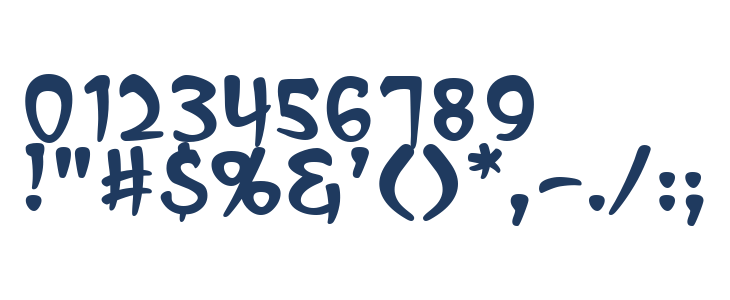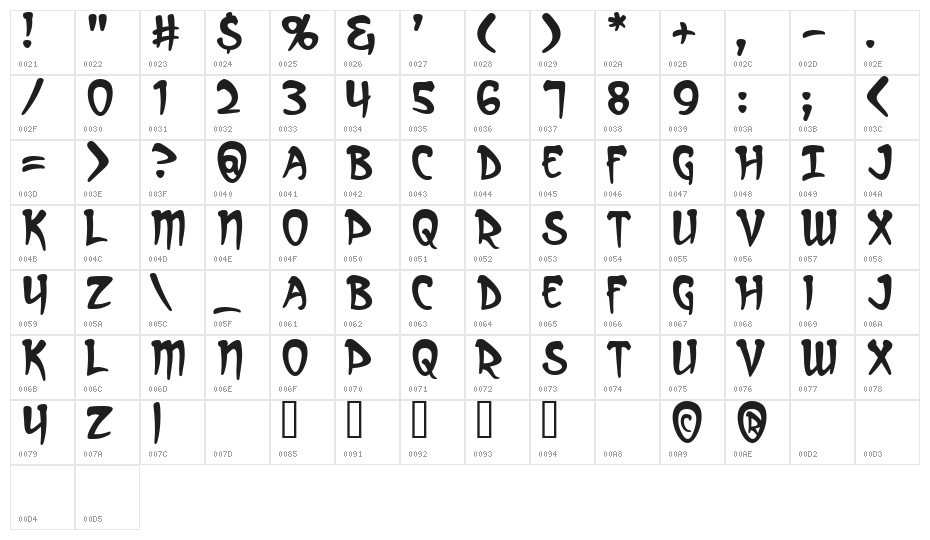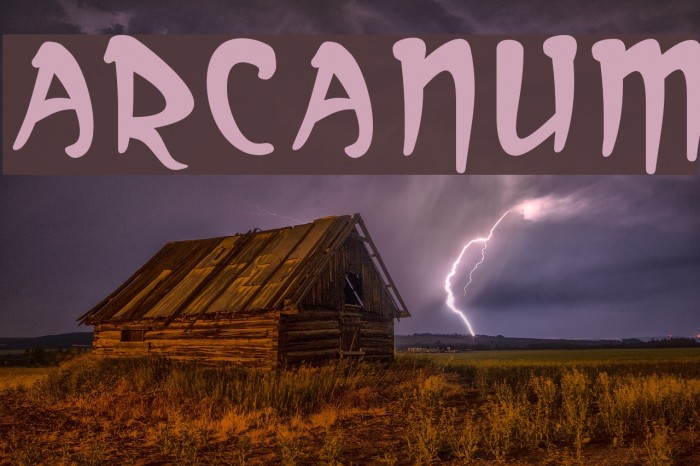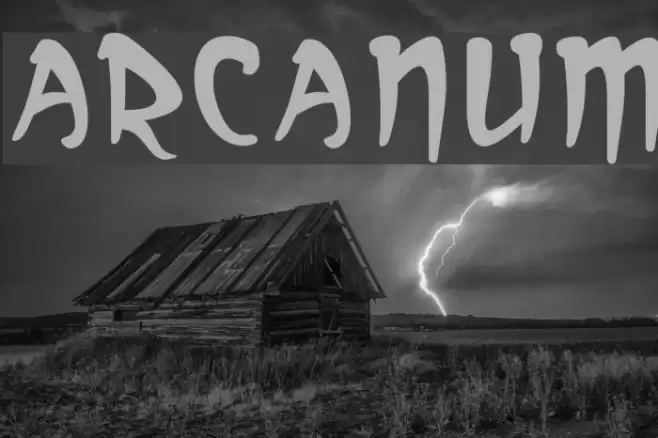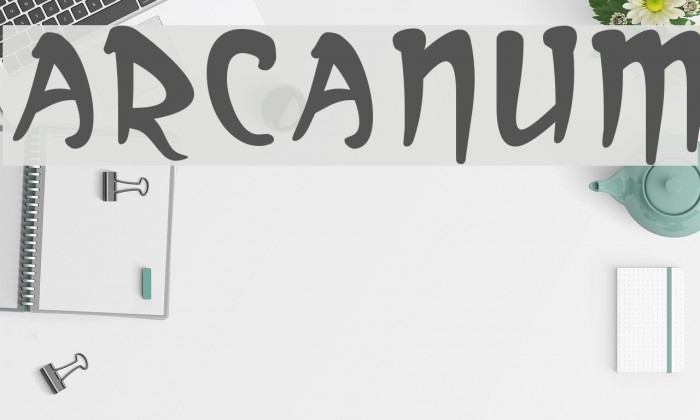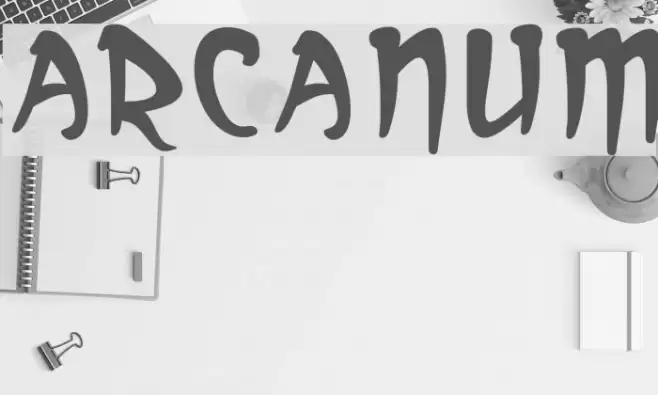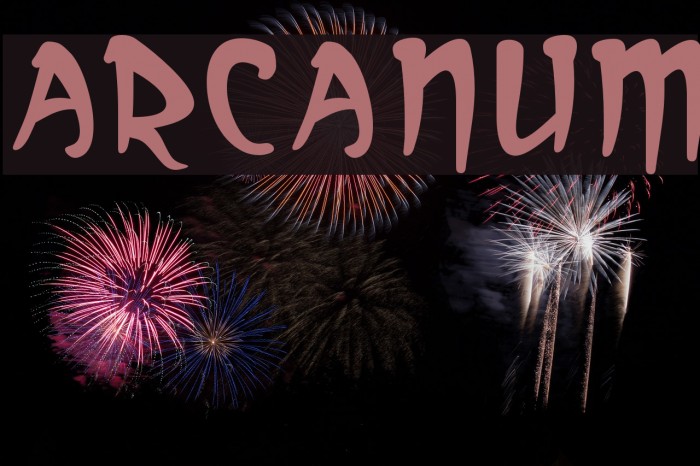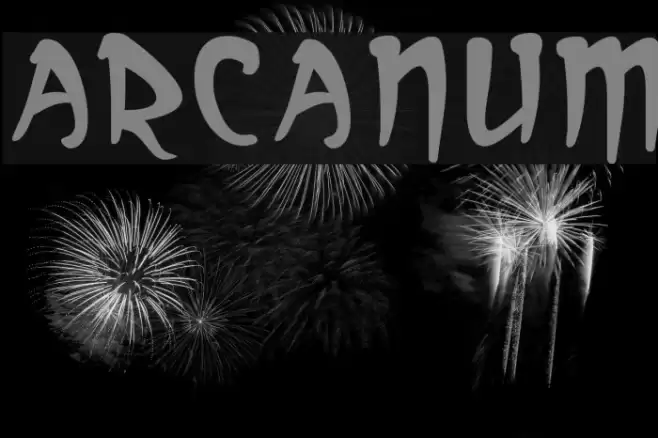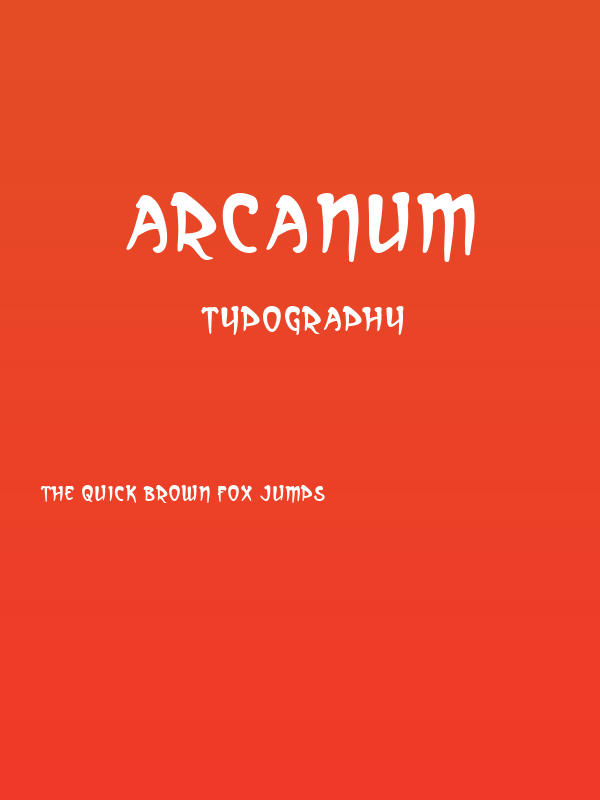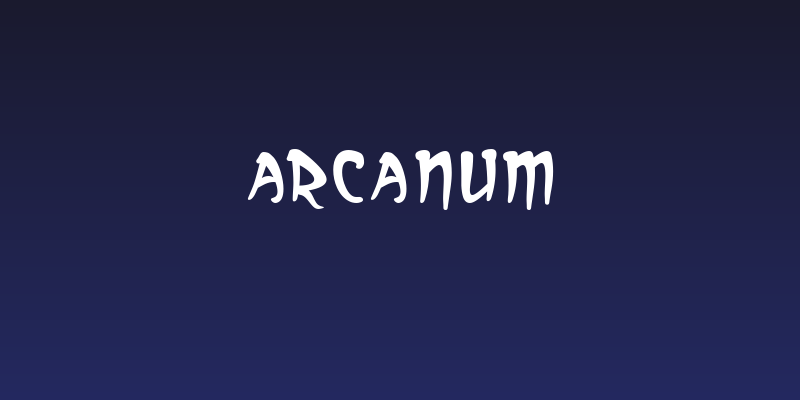
Arcanum Font
Arcanum Description
This font features a bold and playful design with a handwritten style. The characters are slightly irregular, giving it a whimsical and informal appearance. The strokes are thick and rounded, contributing to its bold presence. The letters have a slight slant, adding to the dynamic and lively feel. This font is suitable for projects that require a fun and engaging look, such as children's books, posters, or creative branding. The numbers and special characters maintain the same playful style, ensuring consistency across all text elements.